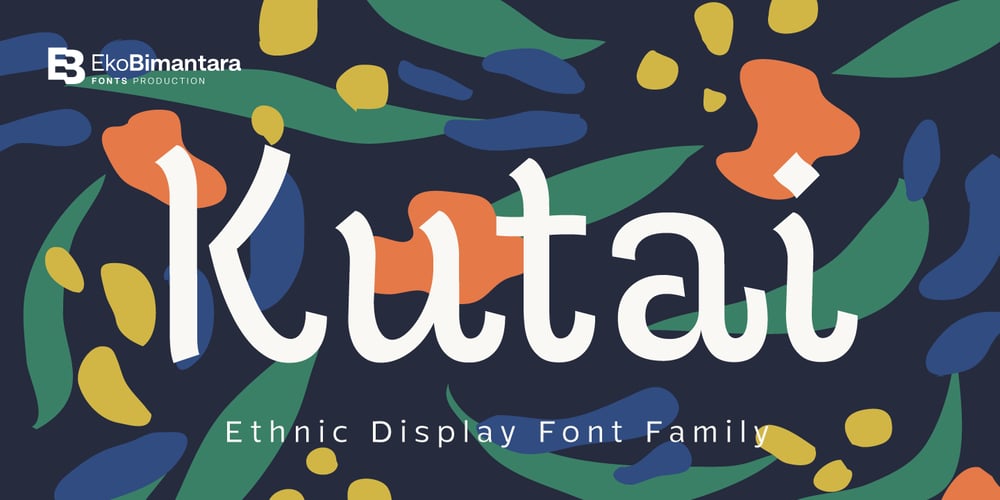
Kutai
Kutai font
Kutai Font Family was designed by Eko Bimantara and published by Eko Bimantara. Kutai contains 4 styles and family package options. Kutai is an explorative typeface that created to pursue unique display typeface fuse with ethnic look. It’s consist of three styles or instance; Normal, Tall and Taller which have different height between each other, especially the x-height.